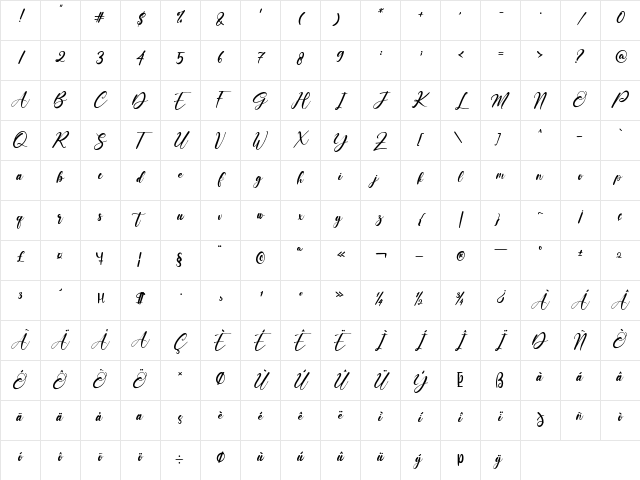
Baby Lovely Regular Free Font
Baby Lovely Regular
Foundry: Typeface￿(Kong Font).2020.
Designer: Typeface￿(Kong Font).2020.
Design Context for Baby Lovely
Baby Lovely is a composed and adaptable typeface that performs quietly and consistently across a wide range of design contexts.